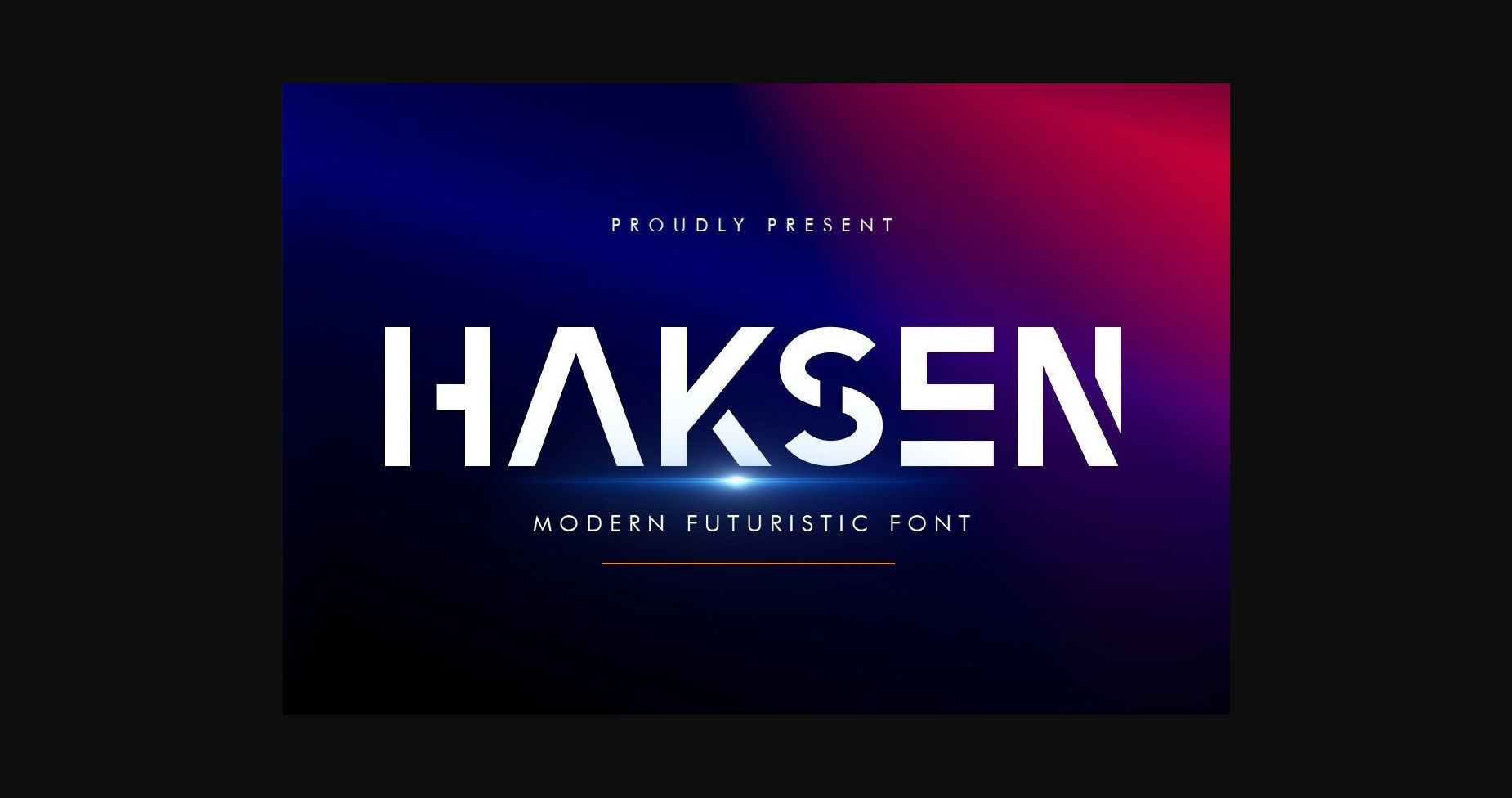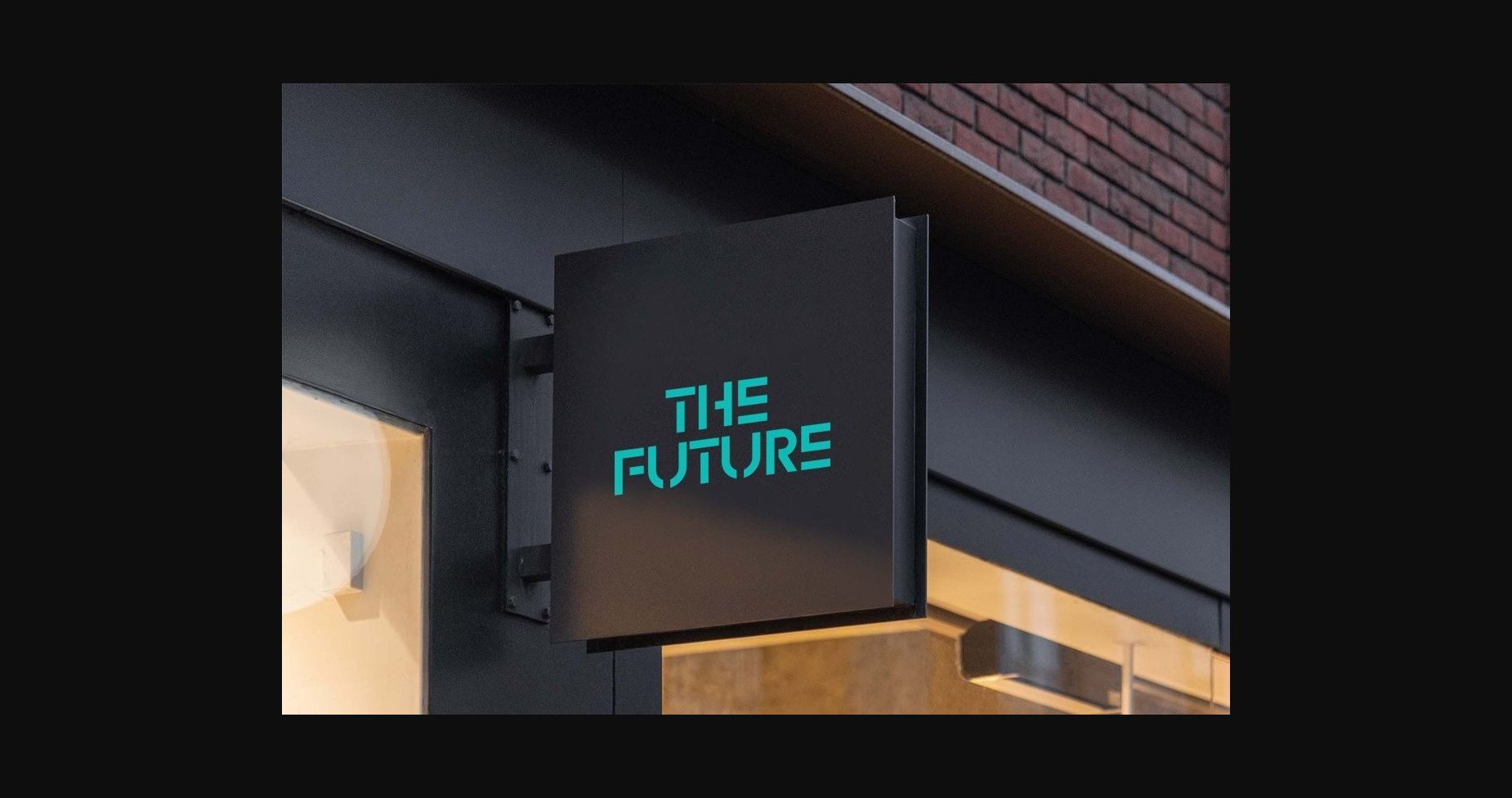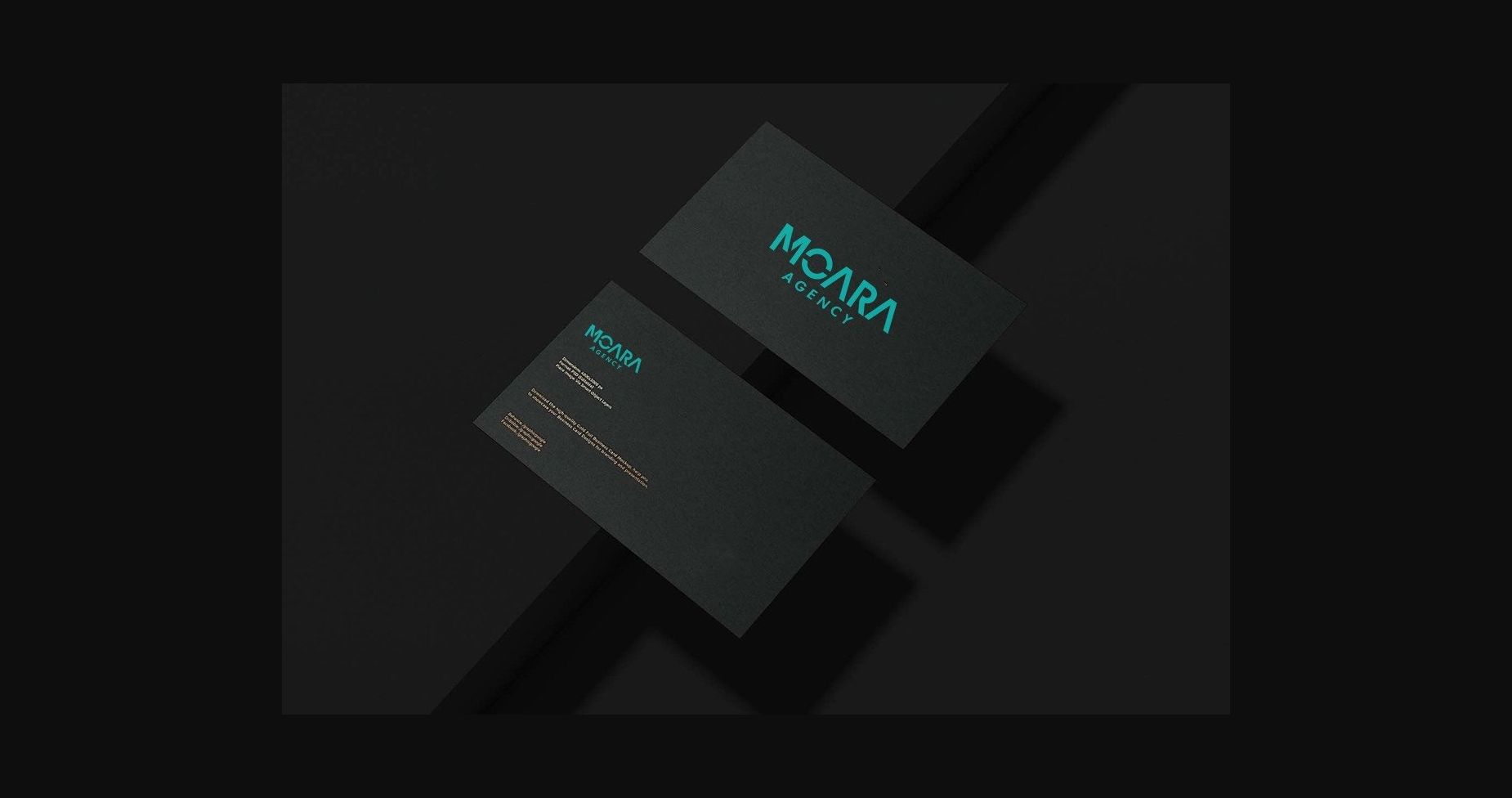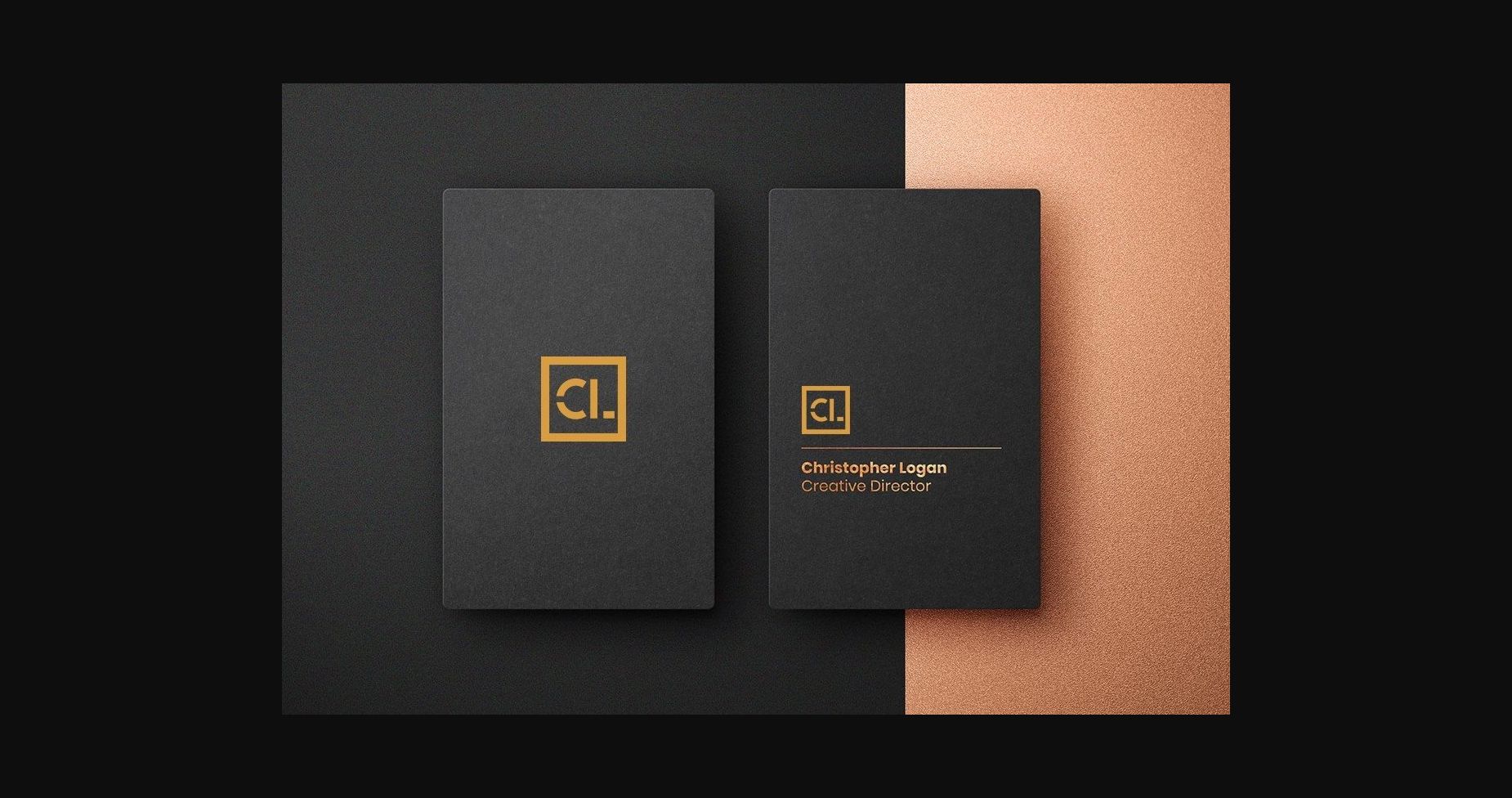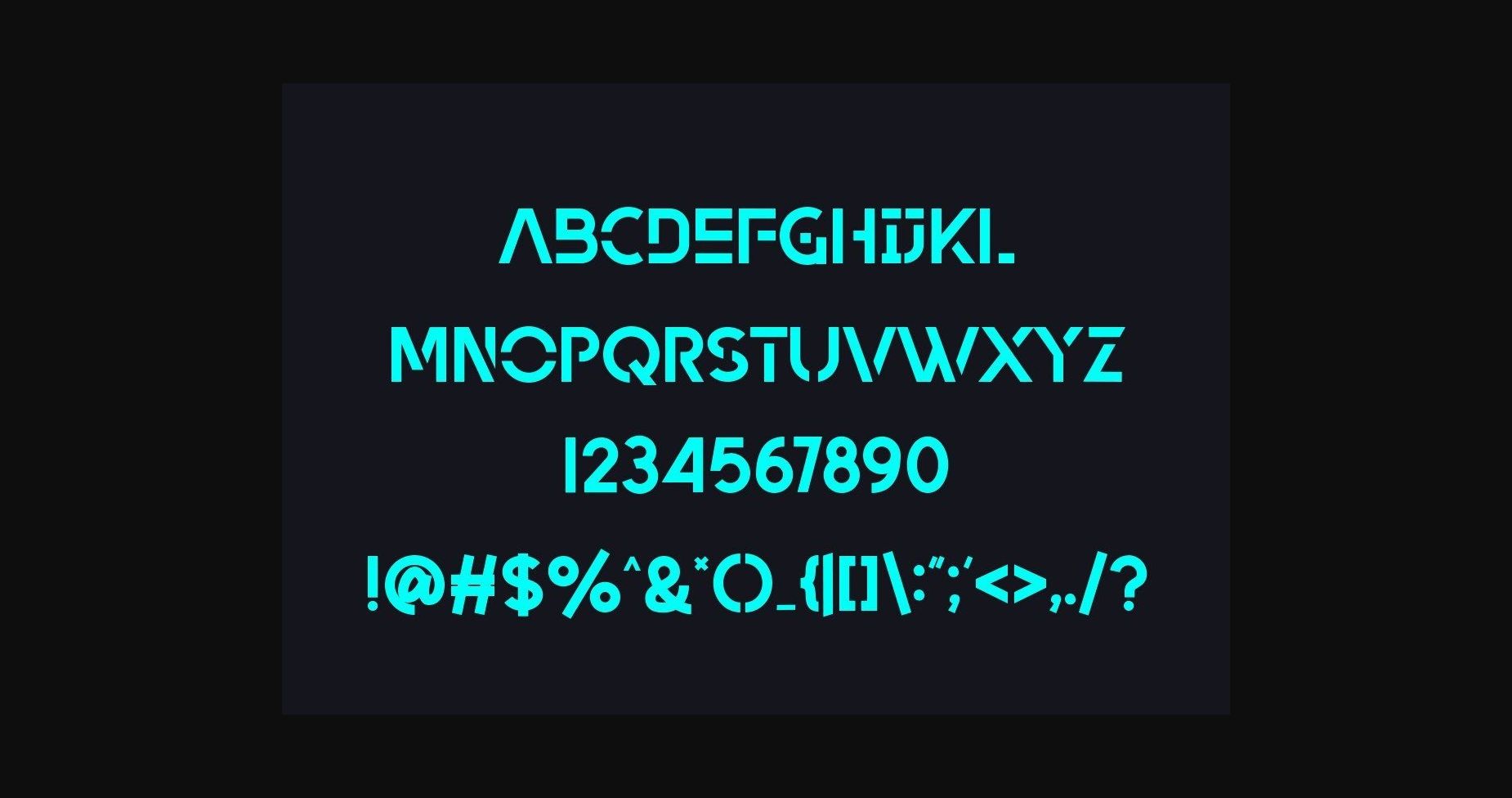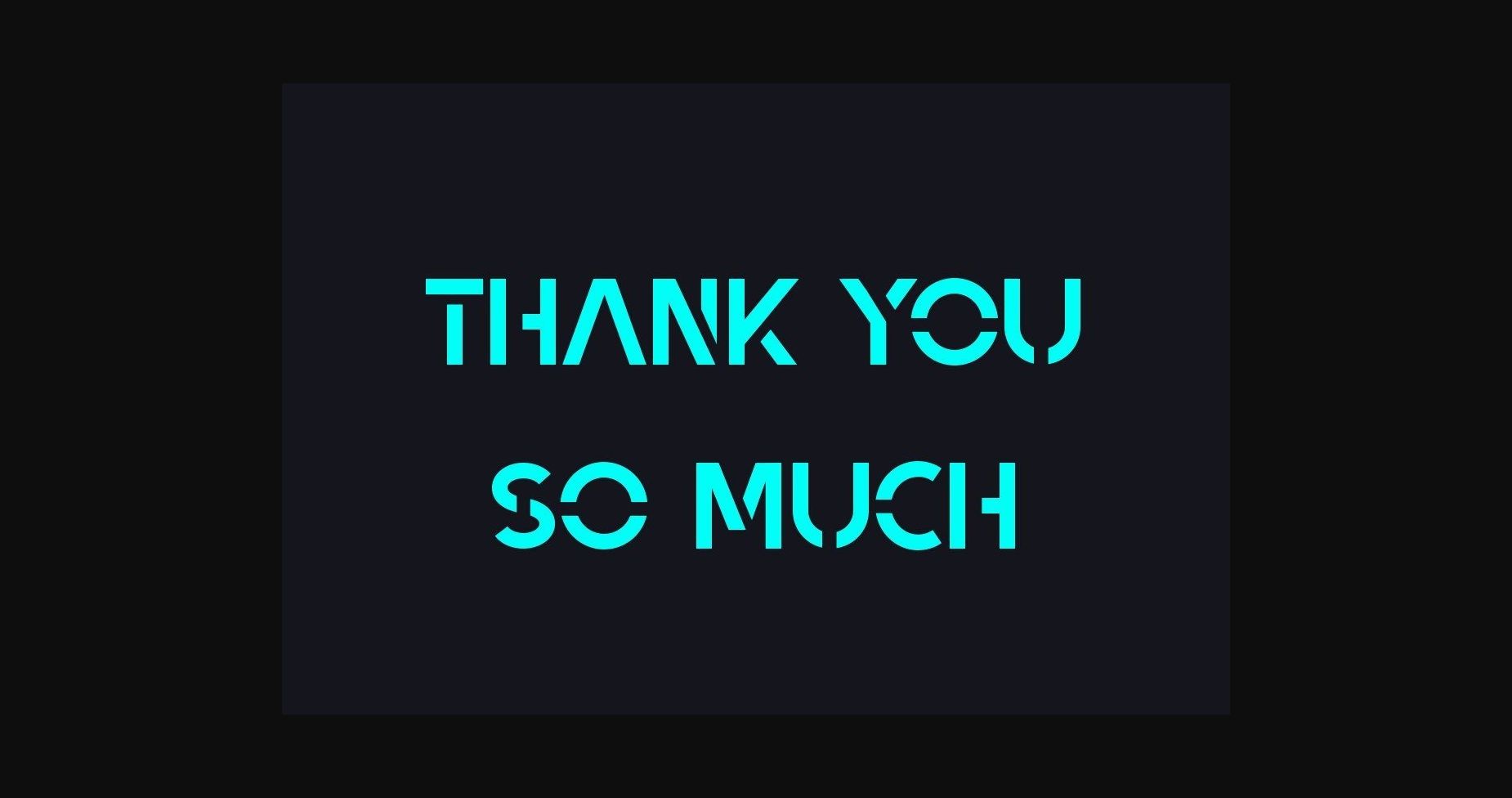
HomeSans Serif FontsHaksen Font Sans Serif Fonts Haksen Font FacebookXPinterestWhatsApp 1 of 9 ... Haksen Font Poster 2... Haksen Font Poster 3... Haksen Font Poster 4... Haksen Font Poster 5... Haksen Font Poster 6... Haksen Font Poster 7... Haksen Font Poster 8... Haksen Font Poster 9... About Haksen Font Haksen is a sans-based font with unique lowercase that will make your design looks futuristic and modern. You can use this font for any purpose, especially to make logotypes. DOWNLOAD NOW People also explored Accessible Font Rijk Spring Time Font Letuce Font Letticia Font Besterline Font Barnetta Font Captein Cholevares Font Snow White Font 282 0 TagsHaksenHaksen Font Previous articleSportive FontNext articleFedora Font LEAVE A REPLY Cancel reply Comment: Please enter your comment! Name:* Please enter your name here Email:* You have entered an incorrect email address! Please enter your email address here Website: Save my name, email, and website in this browser for the next time I comment. Personal Use Free Forturn Personal Use Free Read more about this font Alinda Personal Use Free Read more about this font Cadosa Personal Use Free Read more about this font Rookie Mastering Personal Use Free Read more about this font BLOG Fonts That Capture the Spirit of New York City New York City is more than just a place—it’s an experience, a rhythm, a visual language... Modern Sans-Serif Fonts That Brands Love in 2025 The 10 Best Handwriting Fonts to Add Personality to Your Designs Free vs Paid Fonts: Why Investing in Premium Fonts Is Worth It